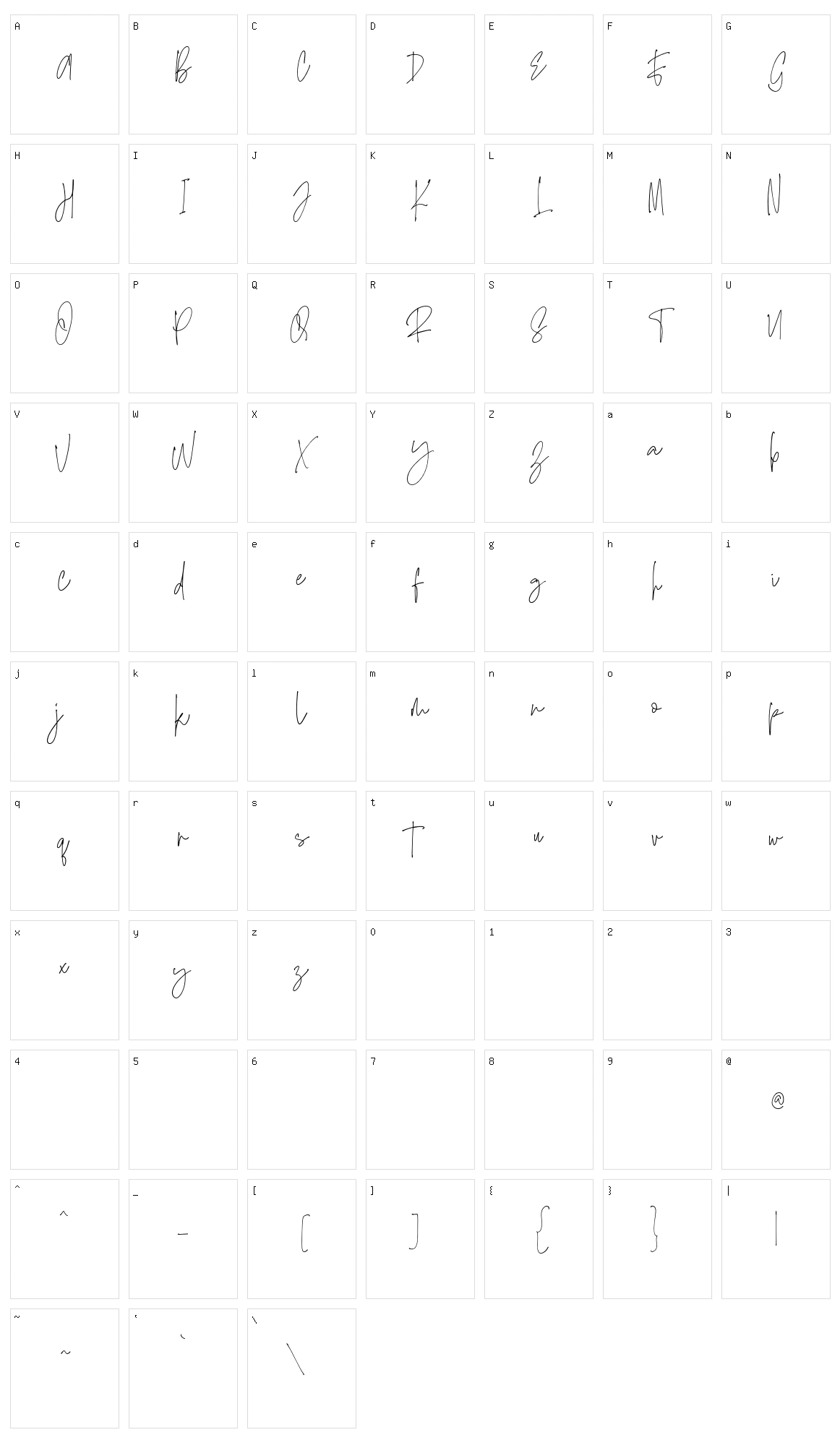
The free font Boulders Beach is carefully designed by Masanis Studio, showcasing a thoughtful balance of creativity and usability and falls under the Script font style. When you download the ZIP file, it contains only 83.74 KB of font files, making it lightweight and quick to download. Please review the license details below to understand permitted usage and distribution rights. If license information is not available, we recommend using this font for personal projects only or contacting the author directly for commercial usage permissions.